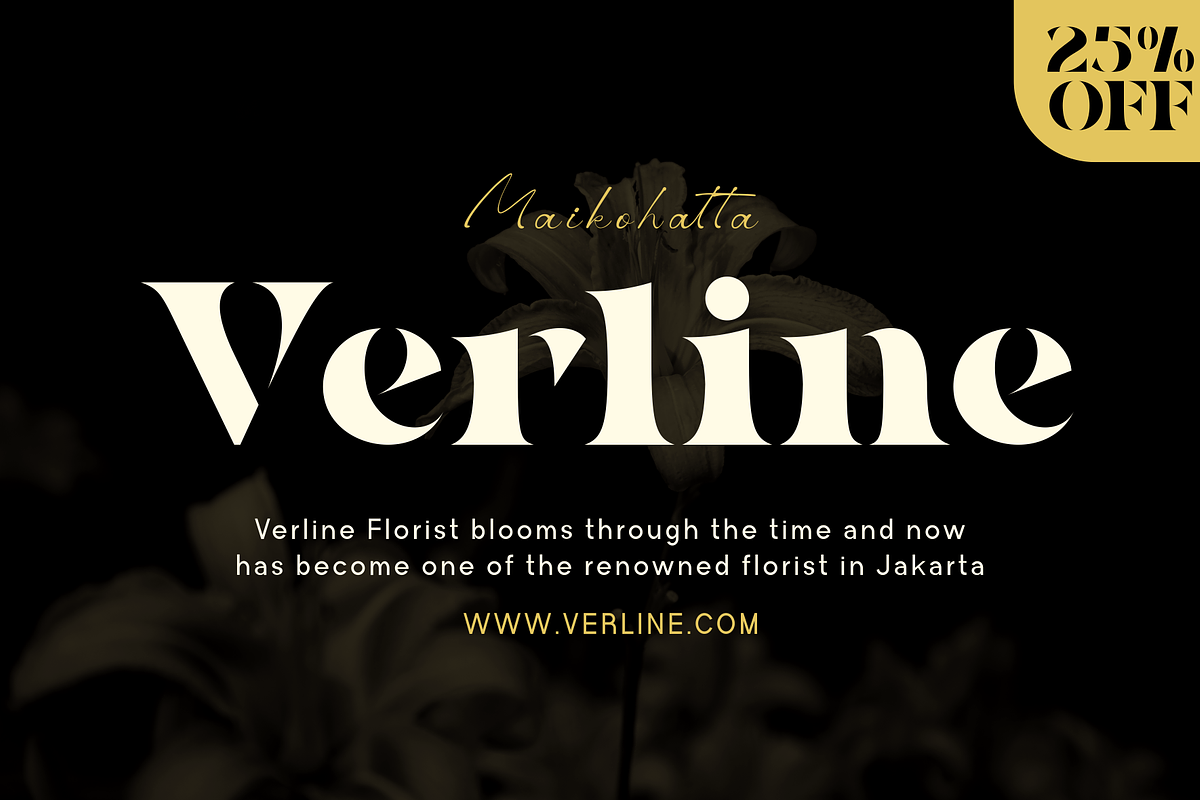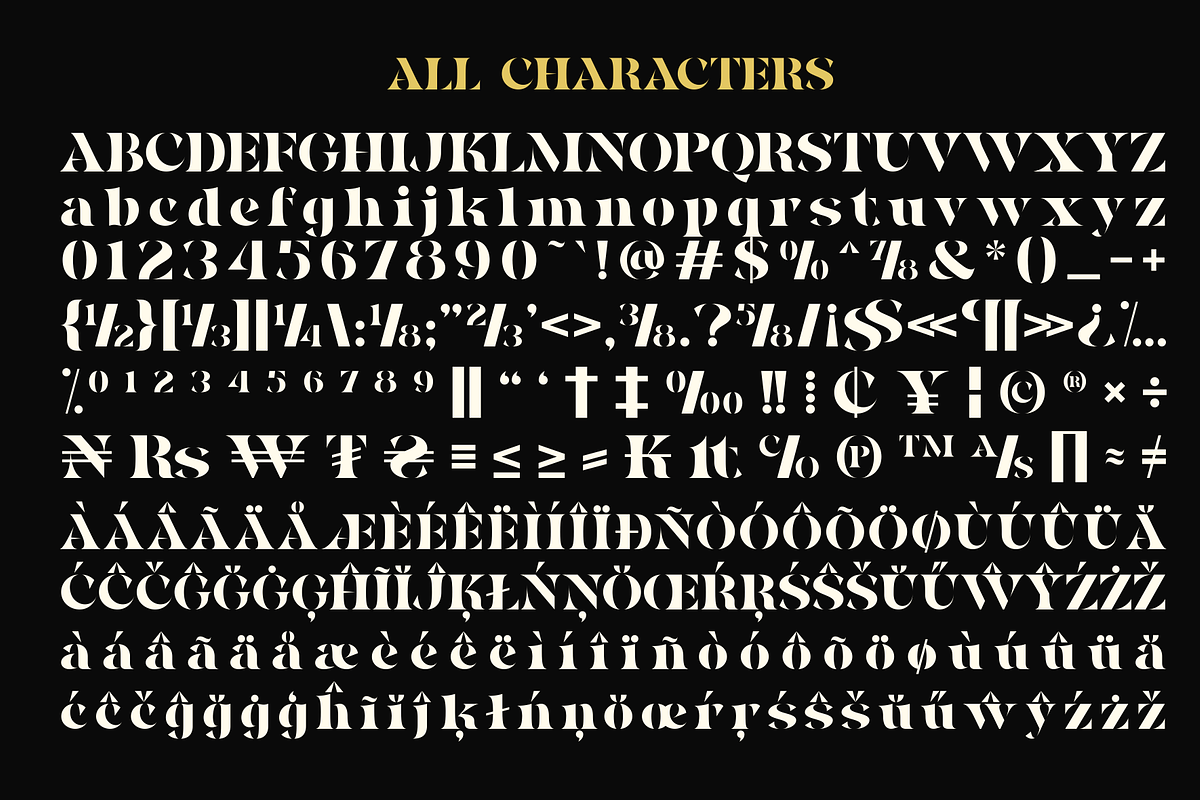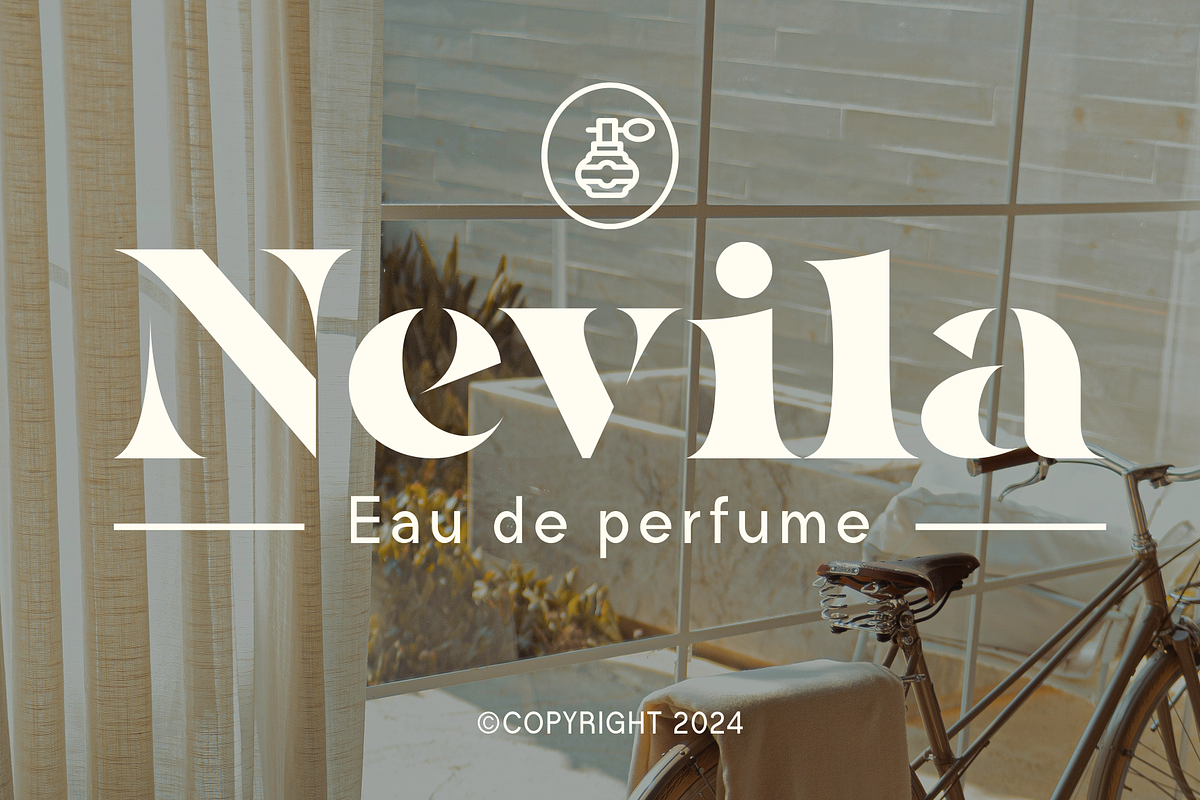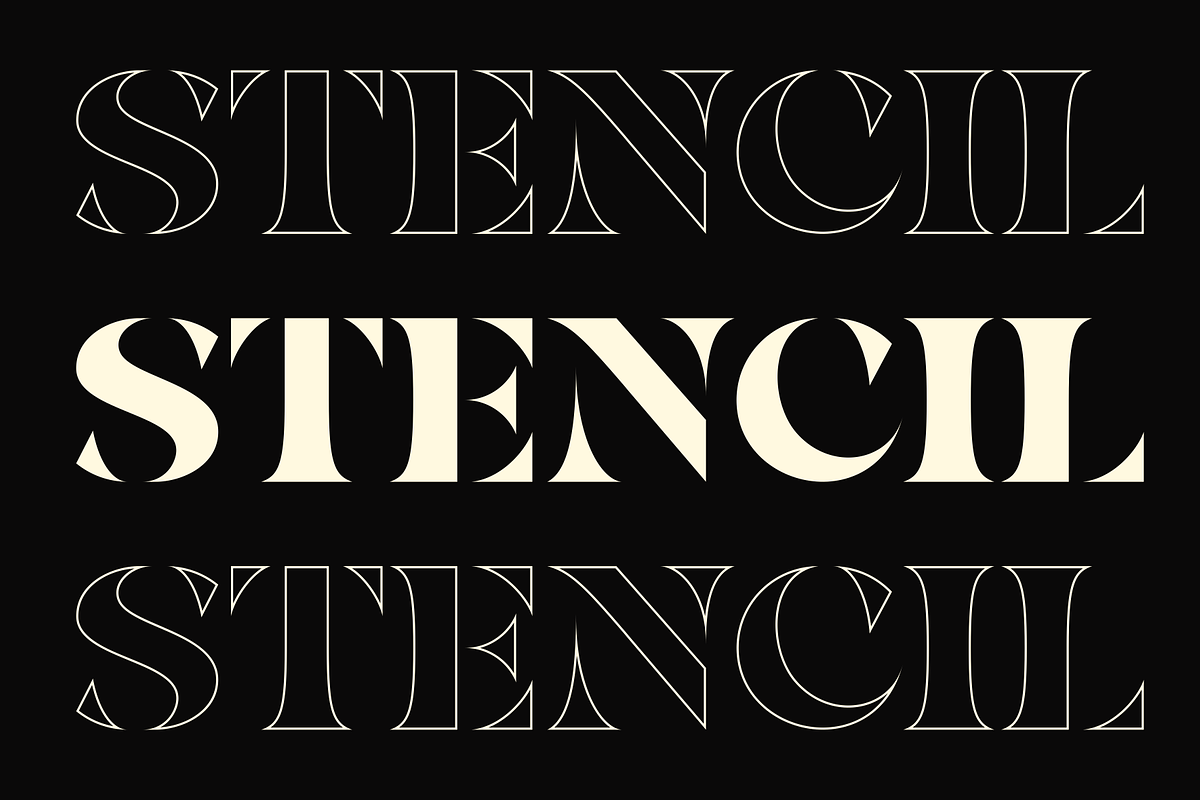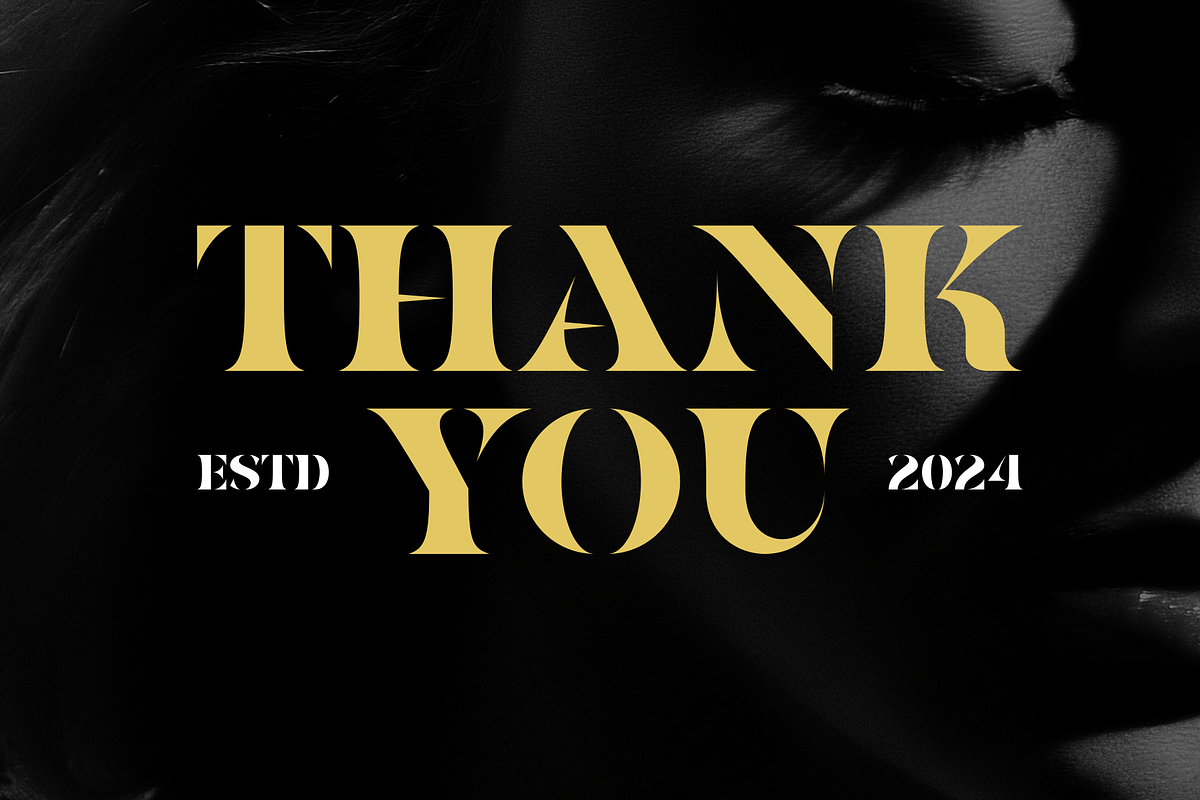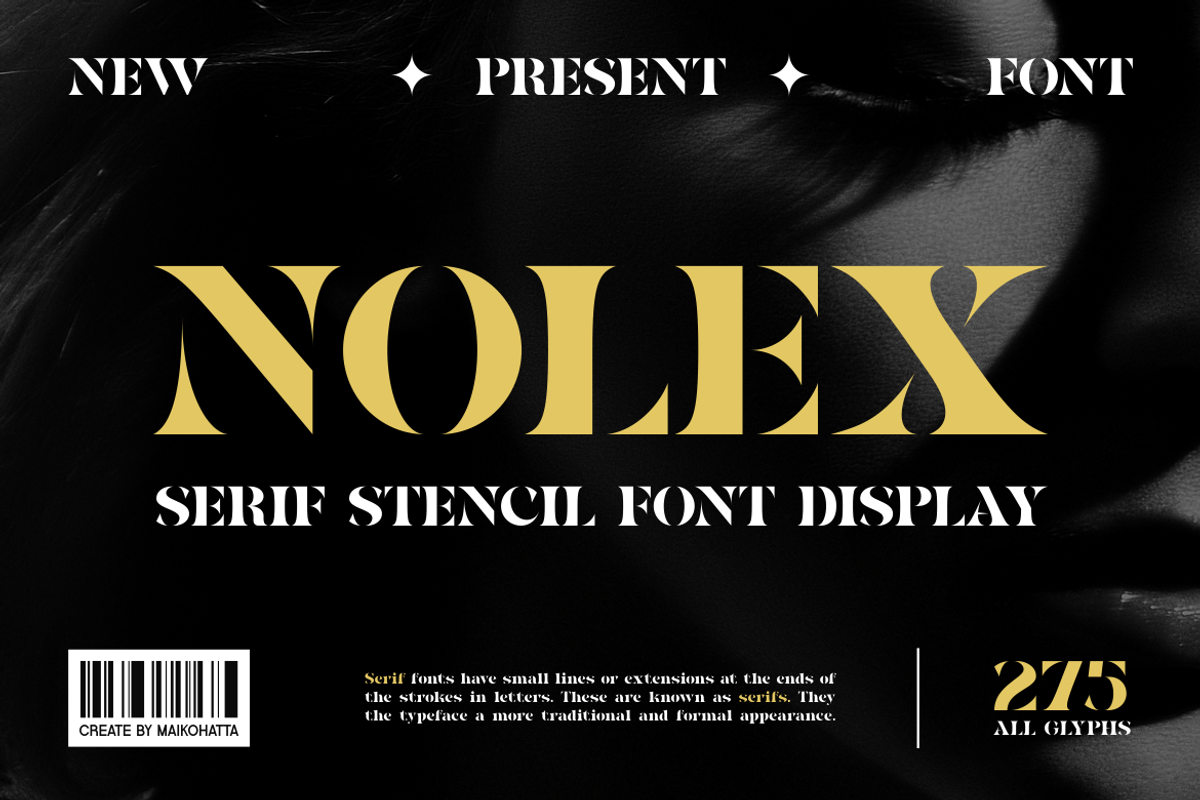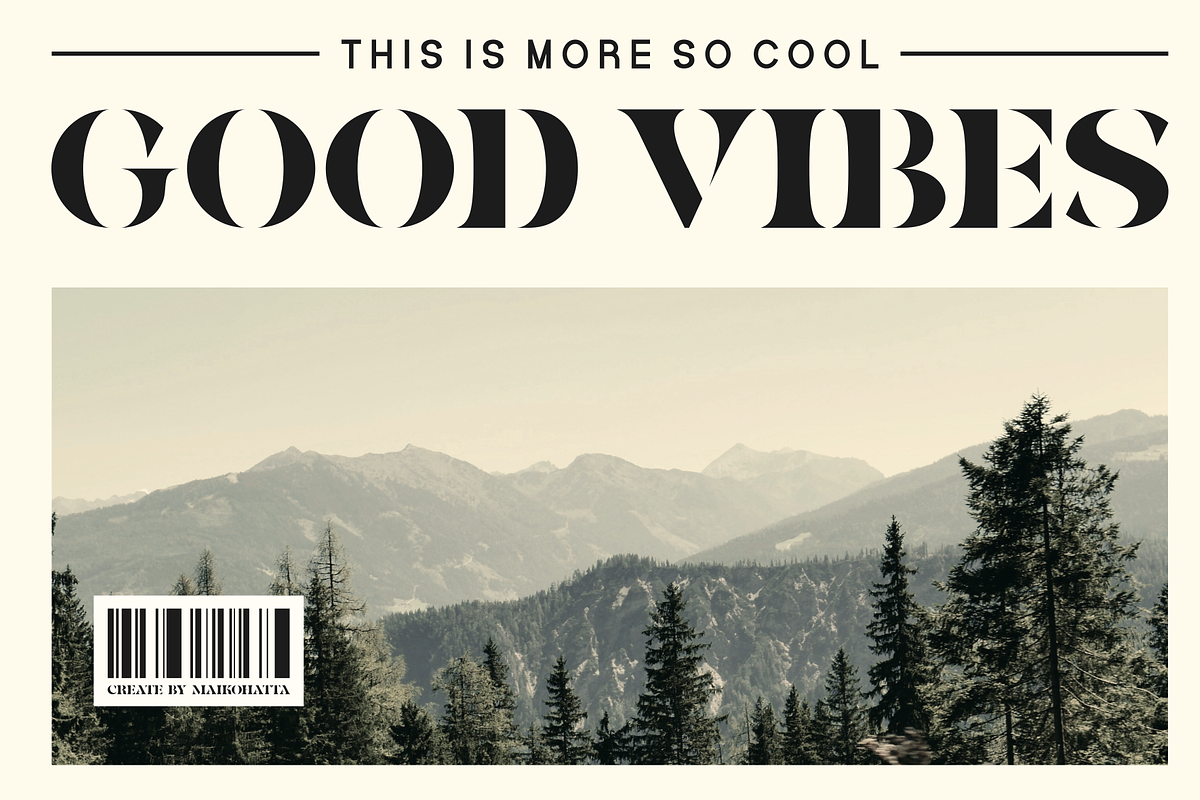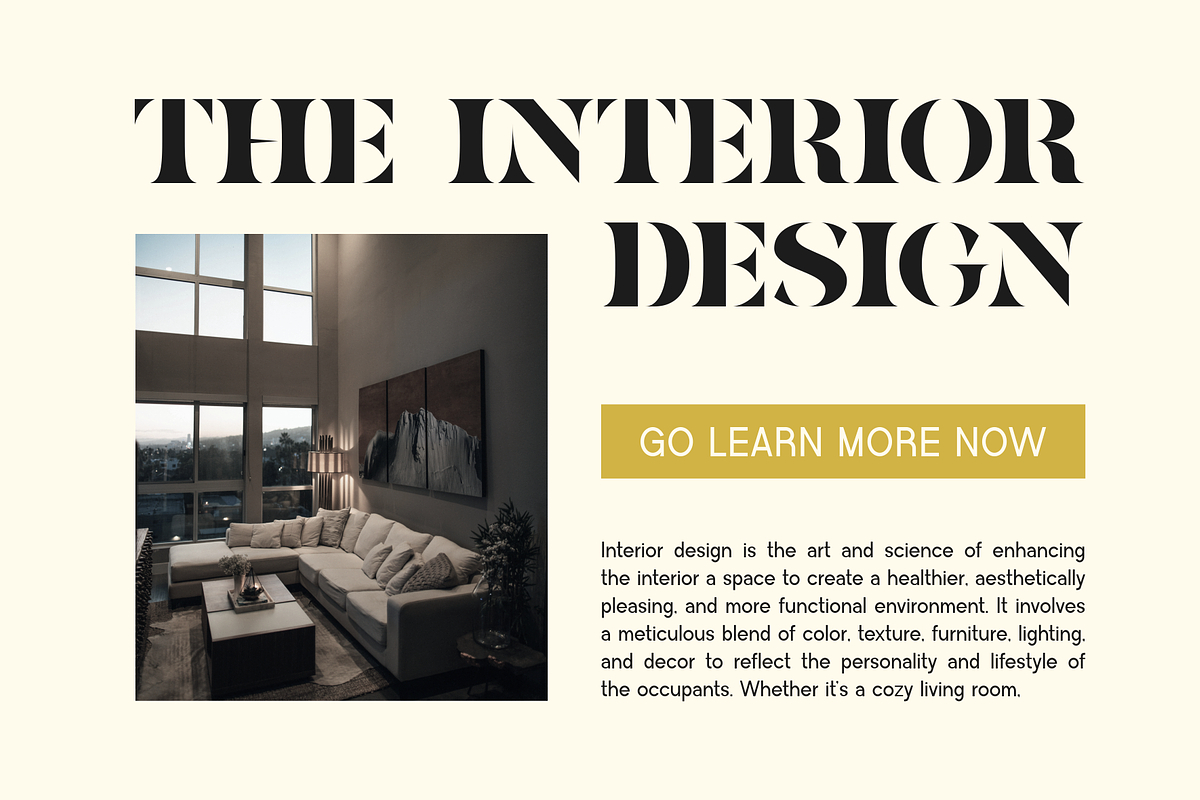
Nolex - Serif Stencil Font Display
Introducing our new product Nolex - Serif Stencil Font Display
This font is characterized by its unique typography style, which features distinctive attributes, namely holes or "cutouts" present in each letter and symbol. The primary hallmark of stencil font is the presence of gaps or apertures around the edges of the characters. This font serves various purposes, particularly in designs that require a special appearance with a robust, assertive, and characteristic touch. It can be used to create messages that are easily recognizable and convey a strong impression in various design contexts.